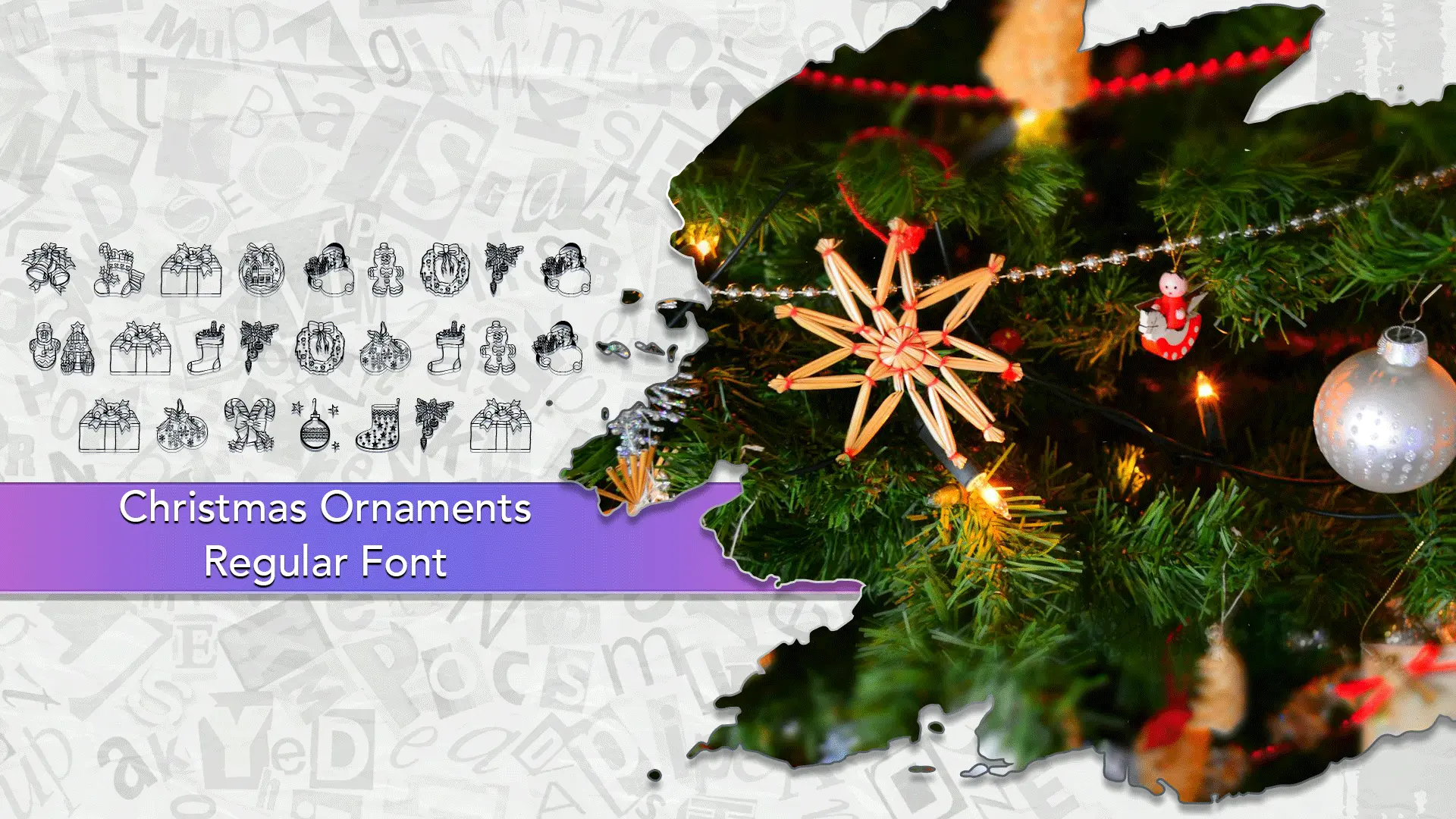
The Christmas Ornaments font family may be ideal for you if you enjoy working on an artistic design project. The lively, expressive look of this typeface, which was created by Ding Bang, makes it ideal for Christmas cards, event invitations, or party flyers. This is arguably its best use. Since the ornament is treated as a single character, it's perfect for cutting out vinyl decals, paper shapes, or stencils for making actual Christmas ornaments, gift tags, or holiday signs. Also on Monograms, Web and Graphic Design and other light-hearted visual projects.
Regular are the one primary font styles of the Christmas Ornaments font family. You may build dynamic, visually appealing text layouts with the distinct flair that each style offers. With crisp, readable lines and a relaxed tone.